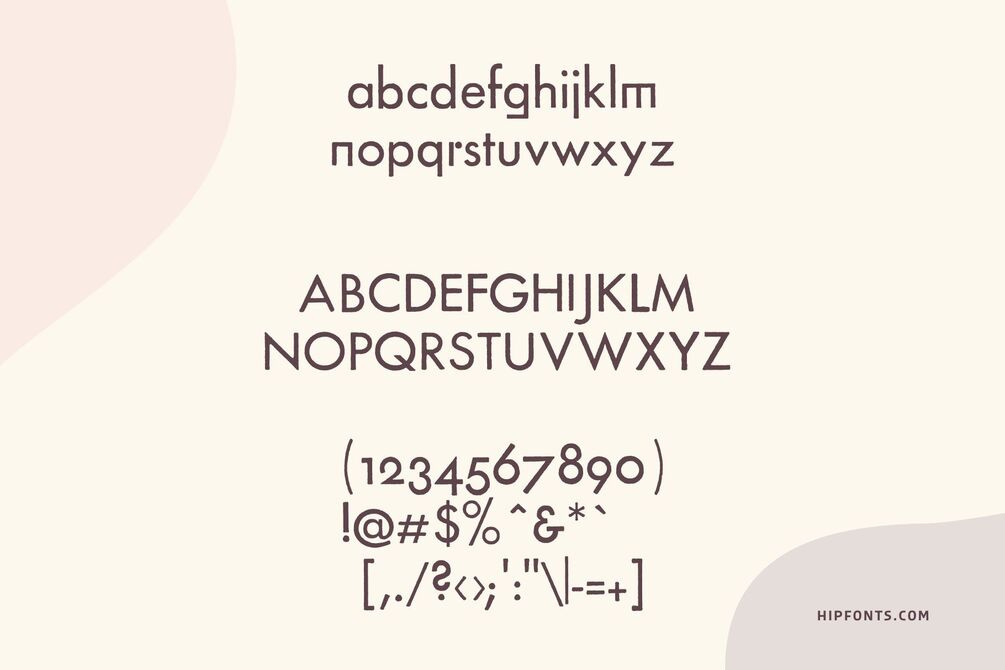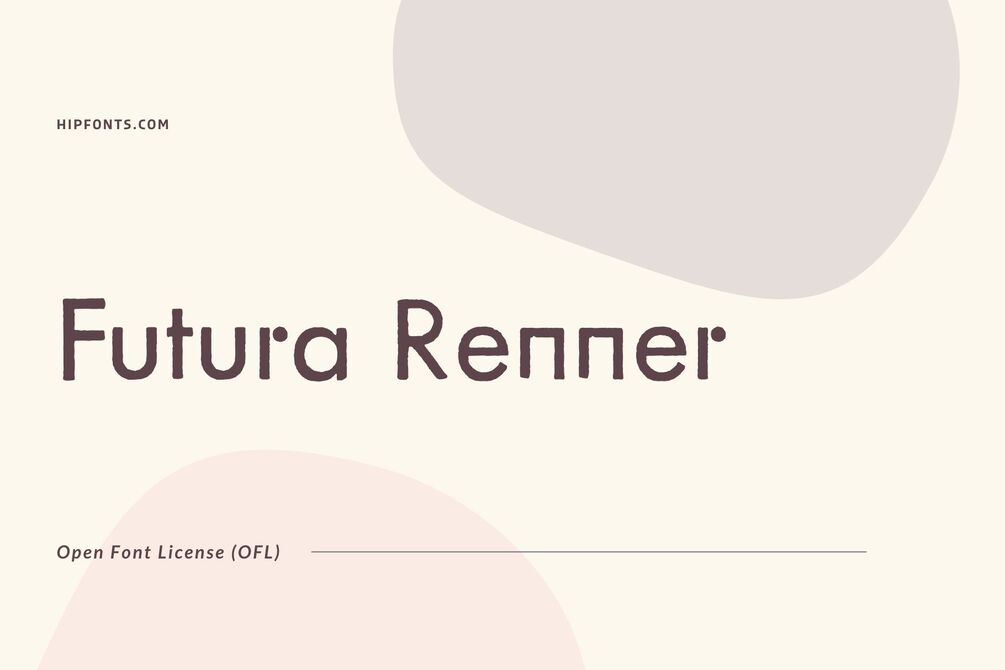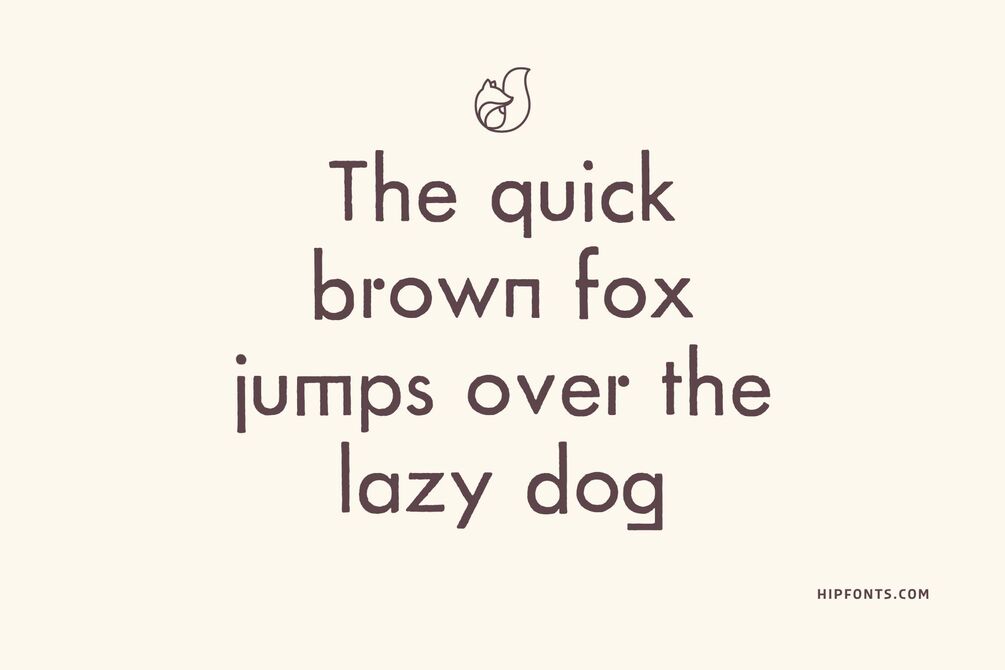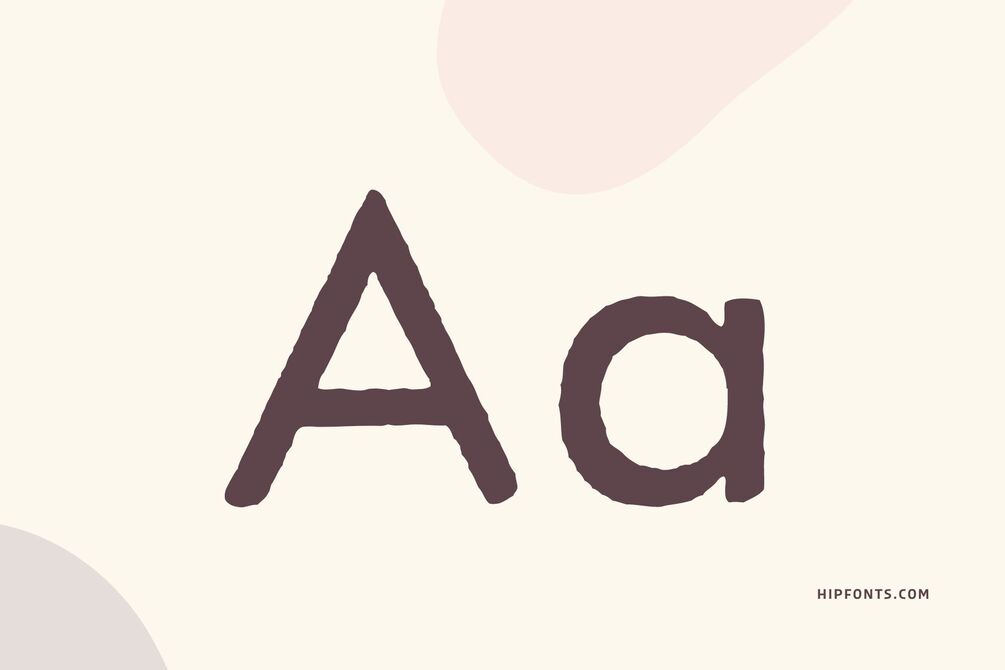
Futura Renner
Futura Renner is a modern and timeless sans-serif font that embodies a sense of geometric elegance. It is a revival of the iconic Futura font, originally designed by Paul Renner. This one is designed by BSozoo
Futura Renner retains the distinctive geometric shapes and clean lines of the original, but with subtle refinements that enhance its legibility and visual appeal. With its balanced letterforms and even stroke widths, Futura Renner offers excellent readability in both display and text sizes. Its versatility makes it suitable for a wide range of design applications, from logos and headlines to body text and branding materials.
Futura Renner's clean and minimalist aesthetic brings a sense of sophistication and contemporary style to any design project. Whether you're creating a minimalist website, designing a modern packaging, or crafting a sleek magazine layout, Futura Renner adds a touch of timeless elegance and professionalism to your designs.